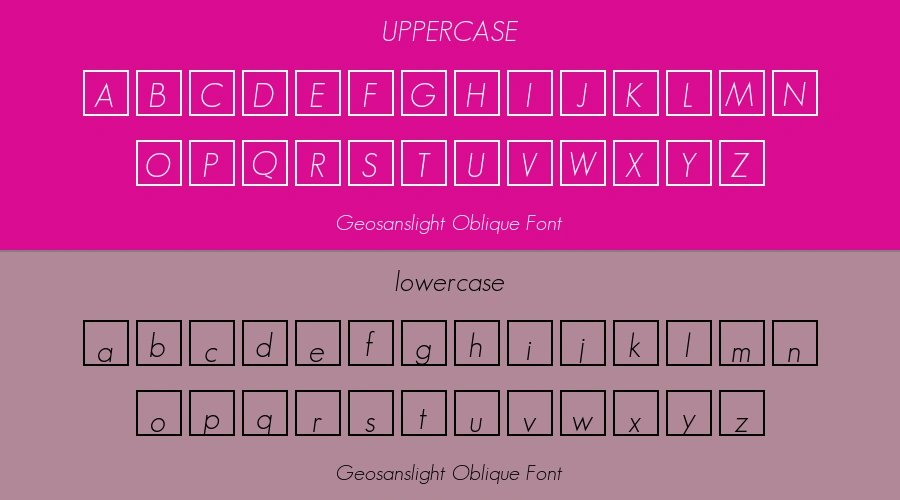
About Geosanslight Oblique Font
When typographic excellence matters most, Geosanslight Oblique Font delivers through its thoughtful blend of expressive curves and reliability. Specially crafted for advertising campaigns, it offers the durability and literary appropriateness required for sophisticated design work. Every detail serves a purpose.
The character set showcases thoughtful details like modular forms alongside functional lining figures. This proves especially valuable in compliance materials, where headline impact directly influences results. Particular attention was paid to letterfit and emotional resonance during development.